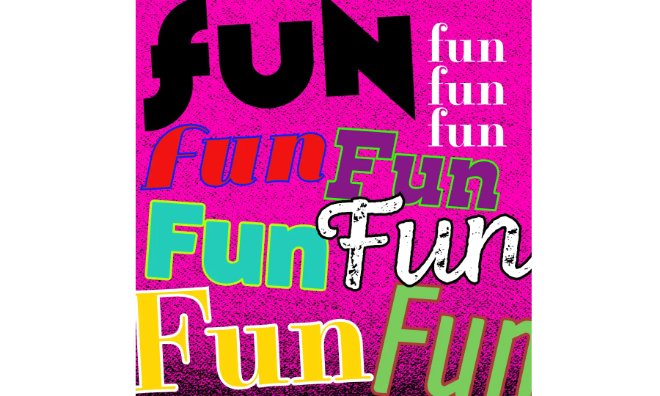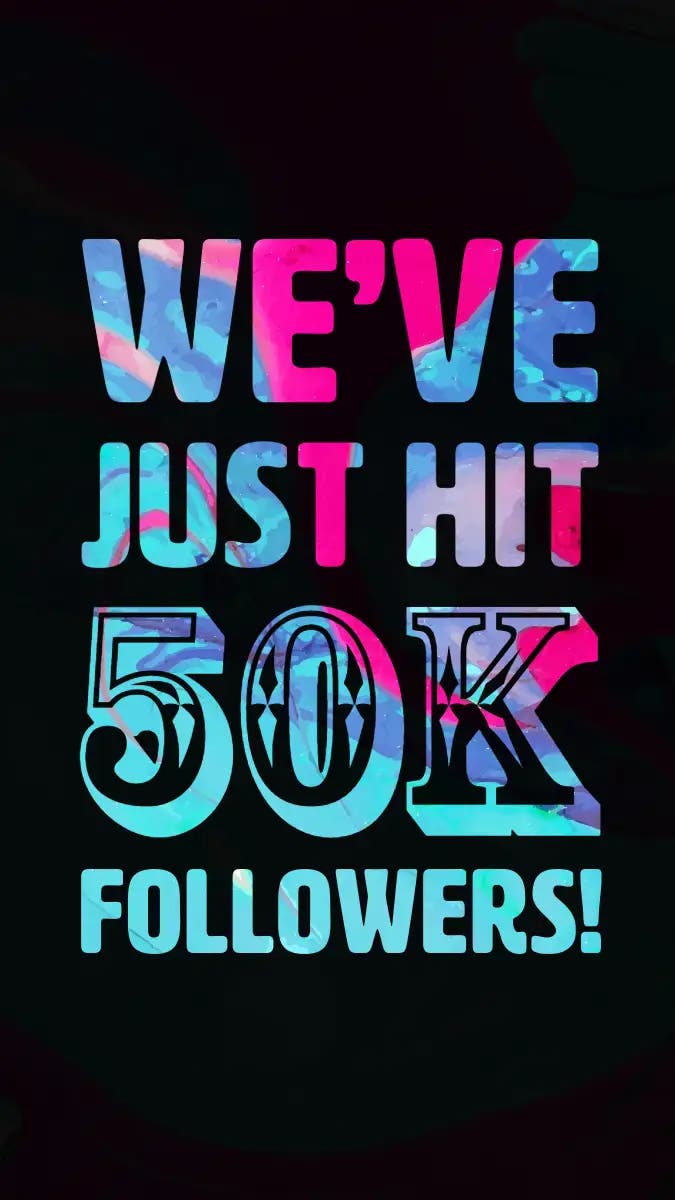
Top 10 fonts for Instagram to boost engagement.
Choosing the right fonts for Instagram can make your posts stand out, increase engagement, and reinforce your brand identity. With Adobe Express, you can access a wide range of fonts and design tools to create scroll-stopping content.
Why font choice is critical for Instagram posts.
Typography is a key element of Instagram branding and engagement. Whether you’re posting quotes, announcements, or promotions, the fonts you choose can impact readability, aesthetics, and user interaction.
A well-chosen font creates visual consistency, makes text easier to read, and reflects your brand’s personality. Whether you’re using bold, minimalist, elegant, or playful fonts, picking the right style can make a huge difference in how people engage with your posts. With Adobe Express, you can explore and experiment with fonts that suit your Instagram content aesthetic perfectly.
Popular font styles for Instagram content.
Instagram content is diverse and fast-moving, so choosing the right font style is essential for making an impact. Here are some of the most effective styles:
- Bold sans-serif fonts: Great for attention-grabbing headlines and CTA-driven posts (e.g. Montserrat, Impact).
- Handwritten and script fonts: Ideal for a casual, personal, or creative touch (e.g. Pacifico, Dancing Script).
- Minimalist fonts: Clean and modern for elegant, high-end branding (e.g. Poppins, Lato).
- Retro and vintage fonts: Adds a nostalgic or unique aesthetic to posts (e.g. Playfair Display, Lobster).
- All-caps fonts: Works well for strong, authoritative branding (e.g. Bebas Neue, Oswald).
Using Adobe Express’s vast font library, you can find the perfect typography style for any Instagram theme.
How to pair fonts for maximum engagement.
Pairing fonts correctly can help you create aesthetic and highly engaging Instagram posts. Follow these best practices:
1. Combine serif and sans-serif fonts.
This creates a balance between tradition and modernity.2. Limit font combinations.
Stick to two or three complementary fonts for a clean look.3. Use hierarchy for readability.
Make headlines bold and body text subtle to improve contrast.4. Match fonts to your content type.
Playful fonts work well for quotes, while structured fonts suit announcements.5. Experiment with spacing and alignment.
Adjust letter spacing and layout for a polished design.
With Adobe Express, you can preview different font combinations and fine-tune your Instagram post typography with ease.
Examples of successful Instagram font combinations.
Choosing the right font pairing can make your Instagram content more visually appealing and effective. Here are some great combinations:
- Poppins + Playfair Display: Clean and modern with a stylish contrast.
- Bebas Neue + Open Sans: Strong, impactful, and easy to read.
- Montserrat + Pacifico: A balance of bold structure and personal touch.
- Raleway + Lora: Elegant and sleek, great for lifestyle brands.
- Oswald + Roboto: Professional and bold for high-engagement marketing posts.
Check out Adobe Express’s Instagram templates to explore these and other successful font pairings in action.